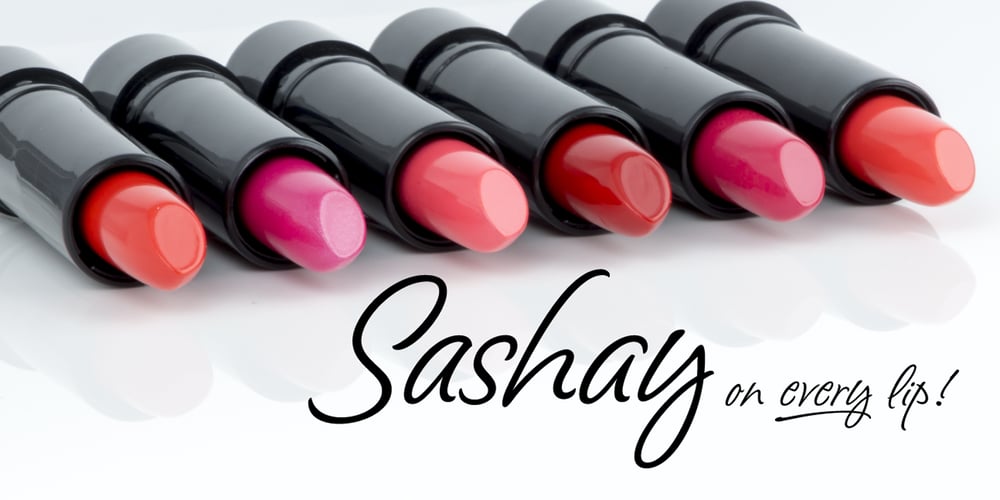
Sashay Script Font Family was designed by Ivan Angelic and published by Ivan Angelic. Sashay Script contains 2 styles and family package options. Sashay Script is an elegant yet friendly script font. It is a rich smooth voice that gives an immediate human connection to any design. Do you need to display: speech; thought; emotions; desires…Sashay Script says it all in a clear legible script. It struts down the runway with panache, accompanied by: 13 Icons, 42 Ligatures and 21 Alternates. Although it is clearly a font that represents handwriting, it is very versatile and usable in that it is: easy to read; has good flow and looks great in both paragraph form or as a standalone word or line. As a bonus, since each and every letter was crafted from the ground up, Sashay Script can be used at larger sizes without losing any of its elegance as its edging is well groomed, without the raw edges that can be the terror of handwritten fonts at larger sizes. Sashay Arrows & Underlines was designed to match with Sashay Script. Often a font such as Sashay is used descriptively and the flow and line-weight of the 68 arrows and underlines match Sashay Script in look and feel. Please take a look at the gallery posters that show both Sashay Script and Sashay Arrows & Underlines, in use. We just know you’ll have a perfect project for this little model of a font ‘Sashaying’ down the font runway.